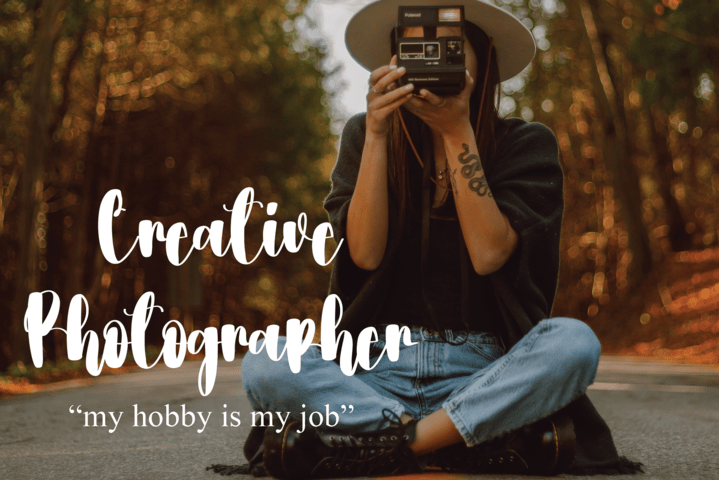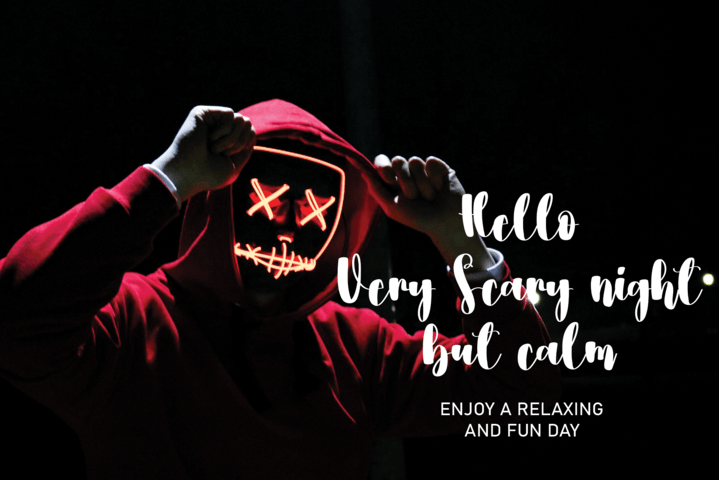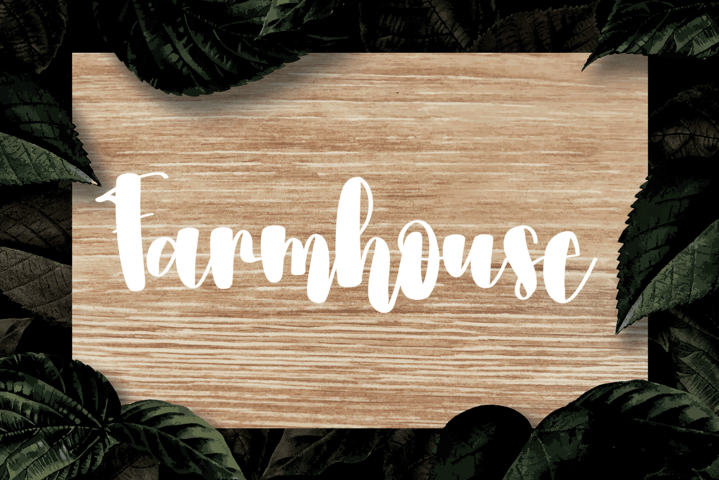
School Font
School Script Font
It’s an organic handwritten font with an elegant touch. Grab this gorgeous font now and start creating fashion magazines, invitations, product tags, brochures, t-shirt designs, branding, and more.